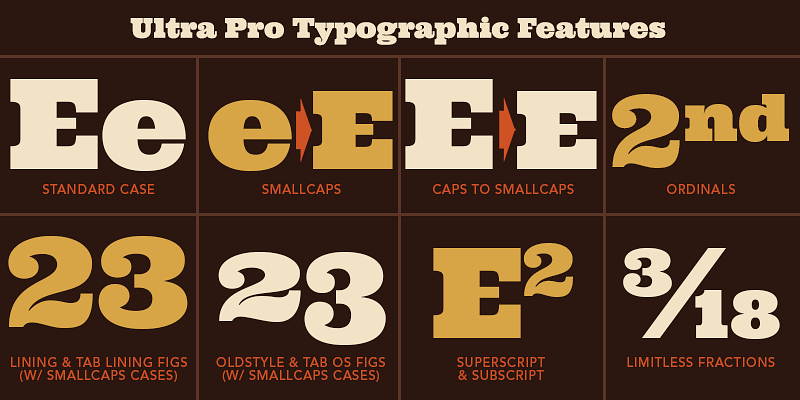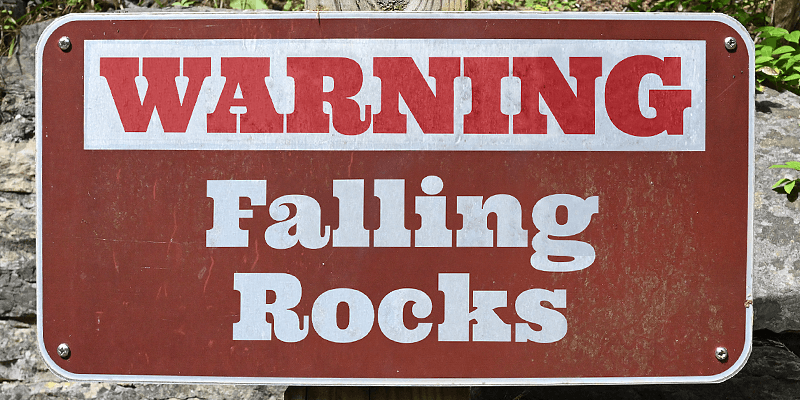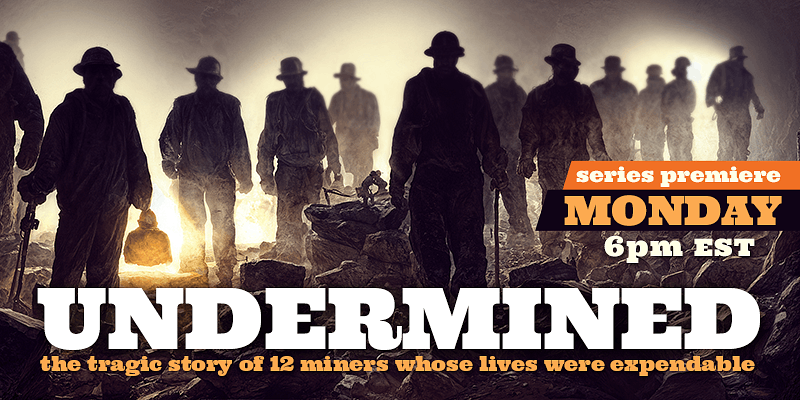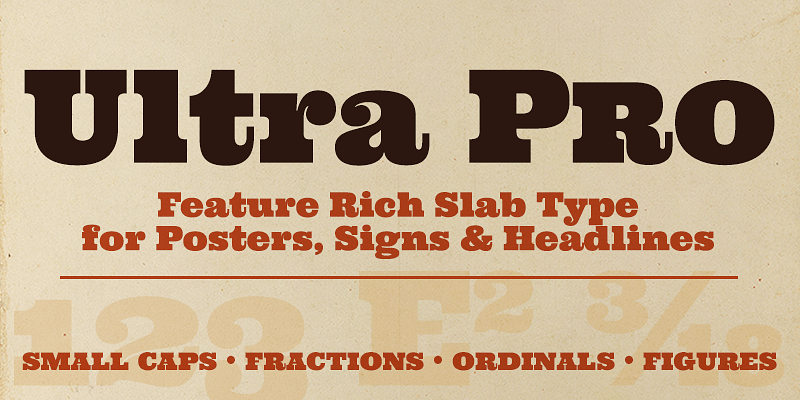
Ultra Pro comes with a richer set of typographic features for designers who need more control in headlines, posters, signs, packaging, editorial layouts, and display branding.
Its heavy slab forms, rounded stress, and sturdy vintage flavor give Ultra Pro an unmistakable voice: strong, friendly, direct, and full of impact. It can feel rugged on warning signs, dramatic in documentary titles, playful in editorial graphics, or classic in retro-inspired layouts. The design has enough personality to carry a headline on its own, while remaining readable and practical at large display sizes.
Ultra Pro includes useful OpenType features such as small caps, ordinals, superscript and subscript, fractions, and multiple figure styles. These additions make the typeface more flexible for professional layout work, giving designers more ways to build complete typographic systems around its bold slab personality.
Use Ultra Pro when a project needs weight, warmth, and unmistakable presence.